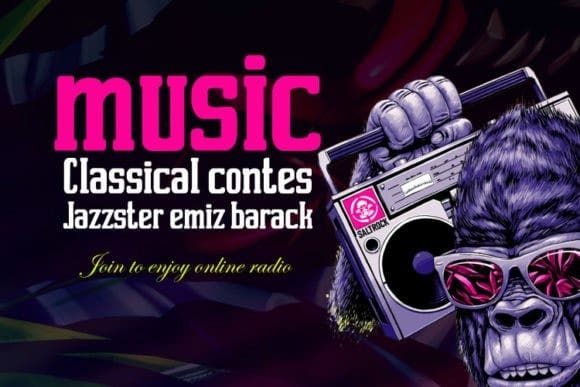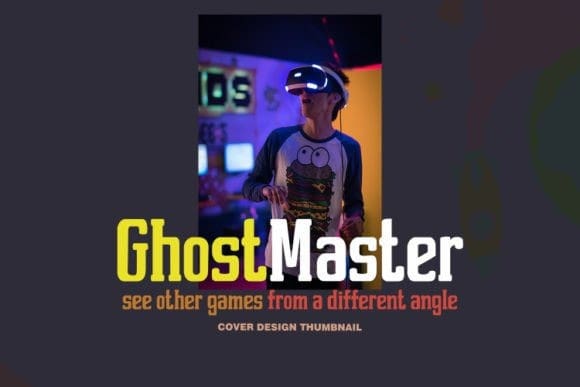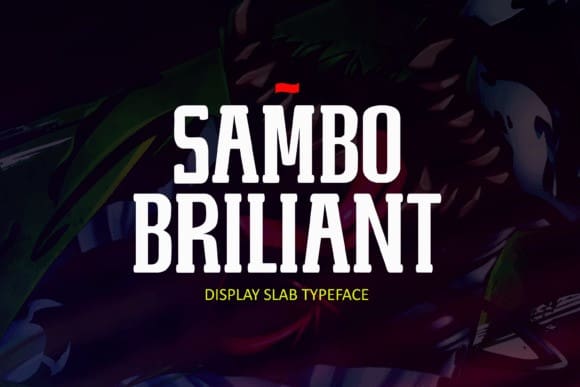
Sambo Briliant Font
Sambo Briliant Font is a cool and modern serif display font. Fall in love with its incredibly distinct and timeless style and use it to create spectacular designs!